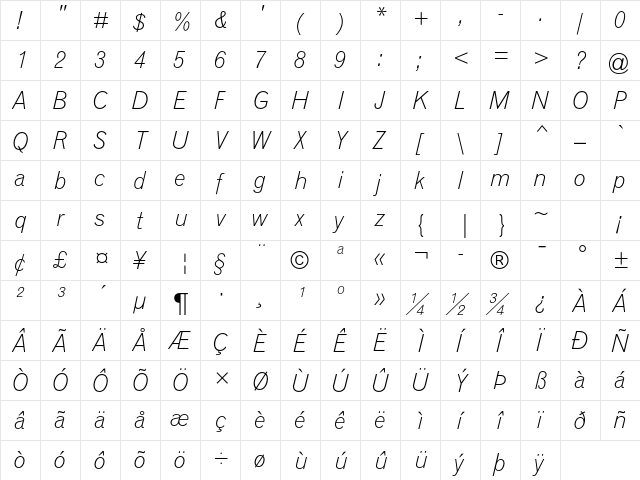
Grotesque MT Std Light Italic Font Preview
Grotesque MT Std Light Italic
Grotesque MT Std Light Italic Font Details
| Style | Light Italic |
| Designer | Unknown |
Design Context for Grotesque MT Std Typeface
Grotesque MT Std takes a measured approach to typography — its balanced proportions and neutral character make it a reliable workhorse for both digital and print work. The slanted form adds forward momentum and visual energy. The delicate stroke weight brings airiness and refinement to layouts.
Pro Tip: Use Grotesque MT Std for emphasis, pull quotes, and subheadings where its slanted energy can add rhythm to the layout.